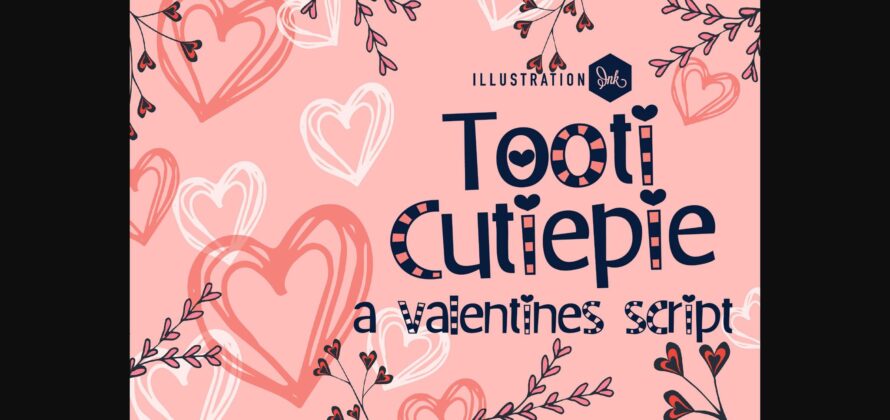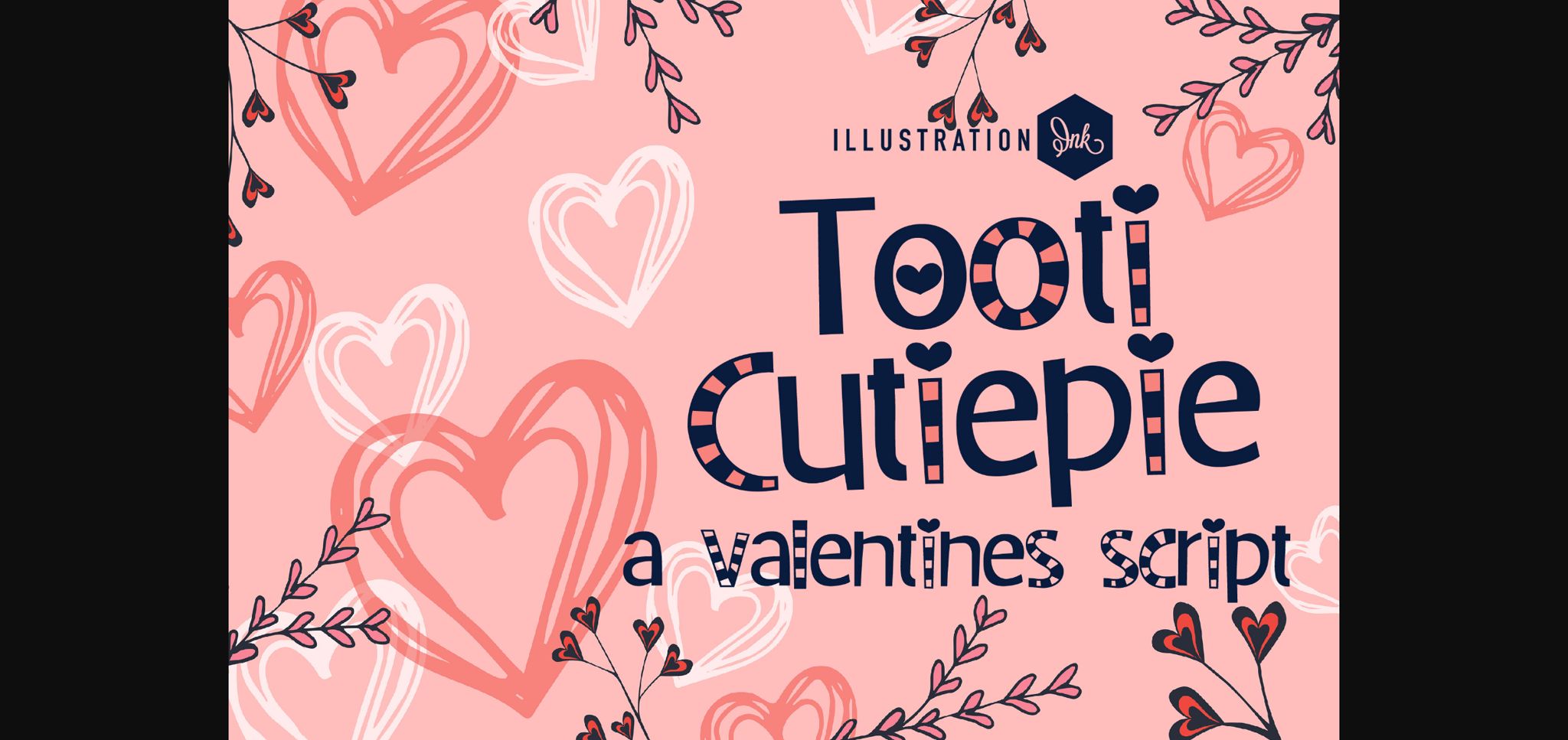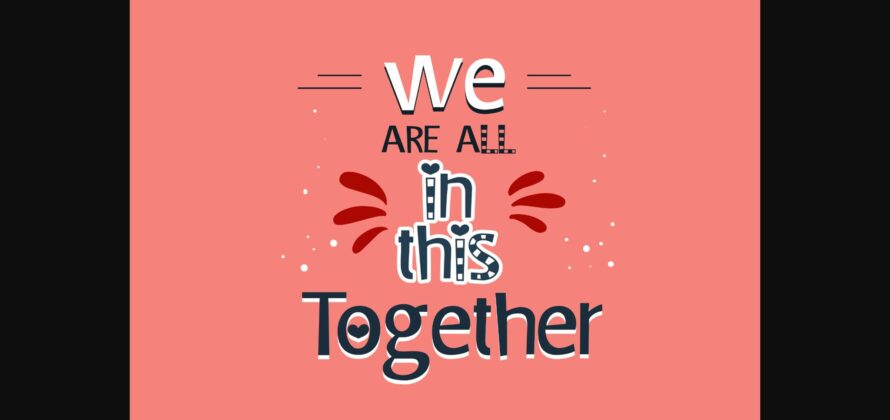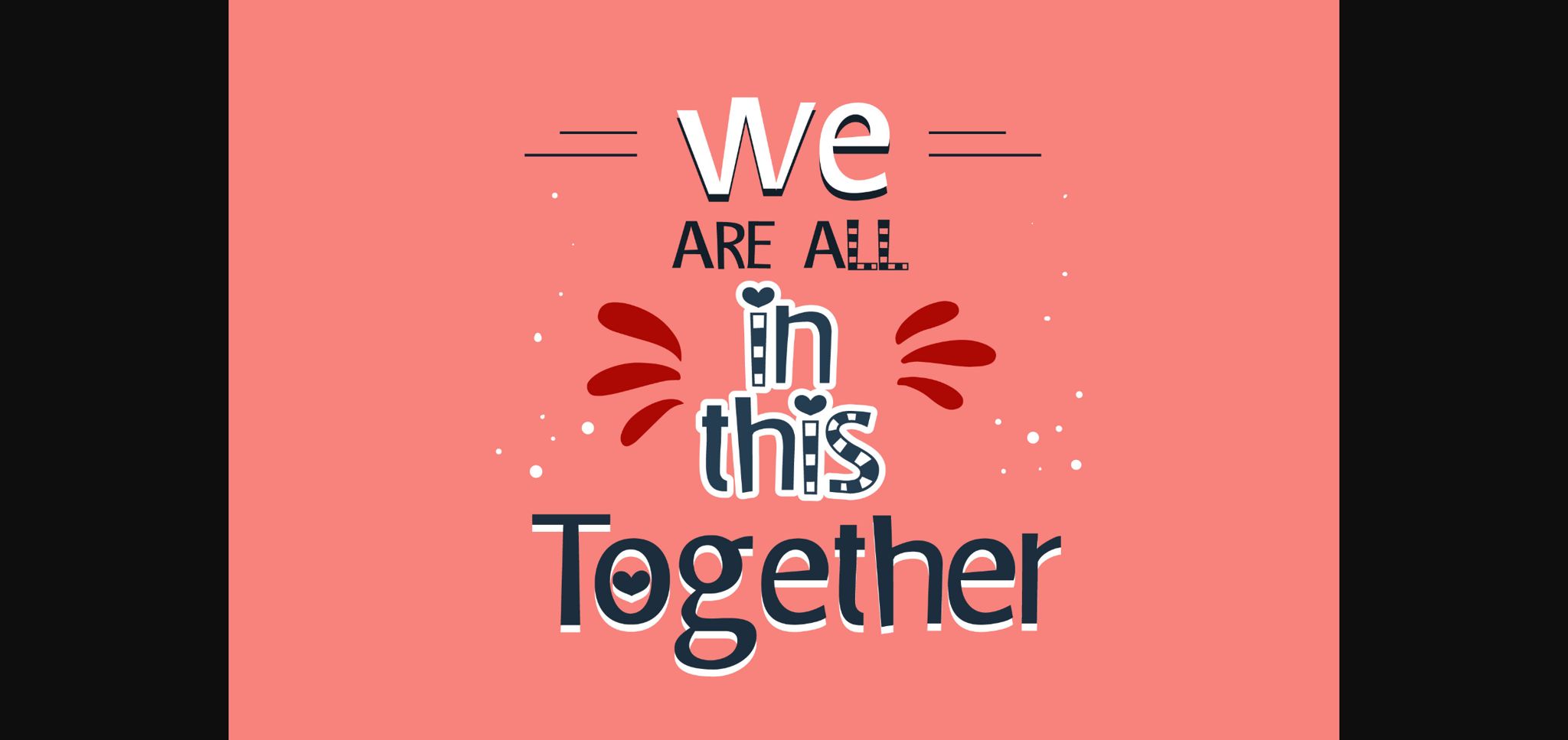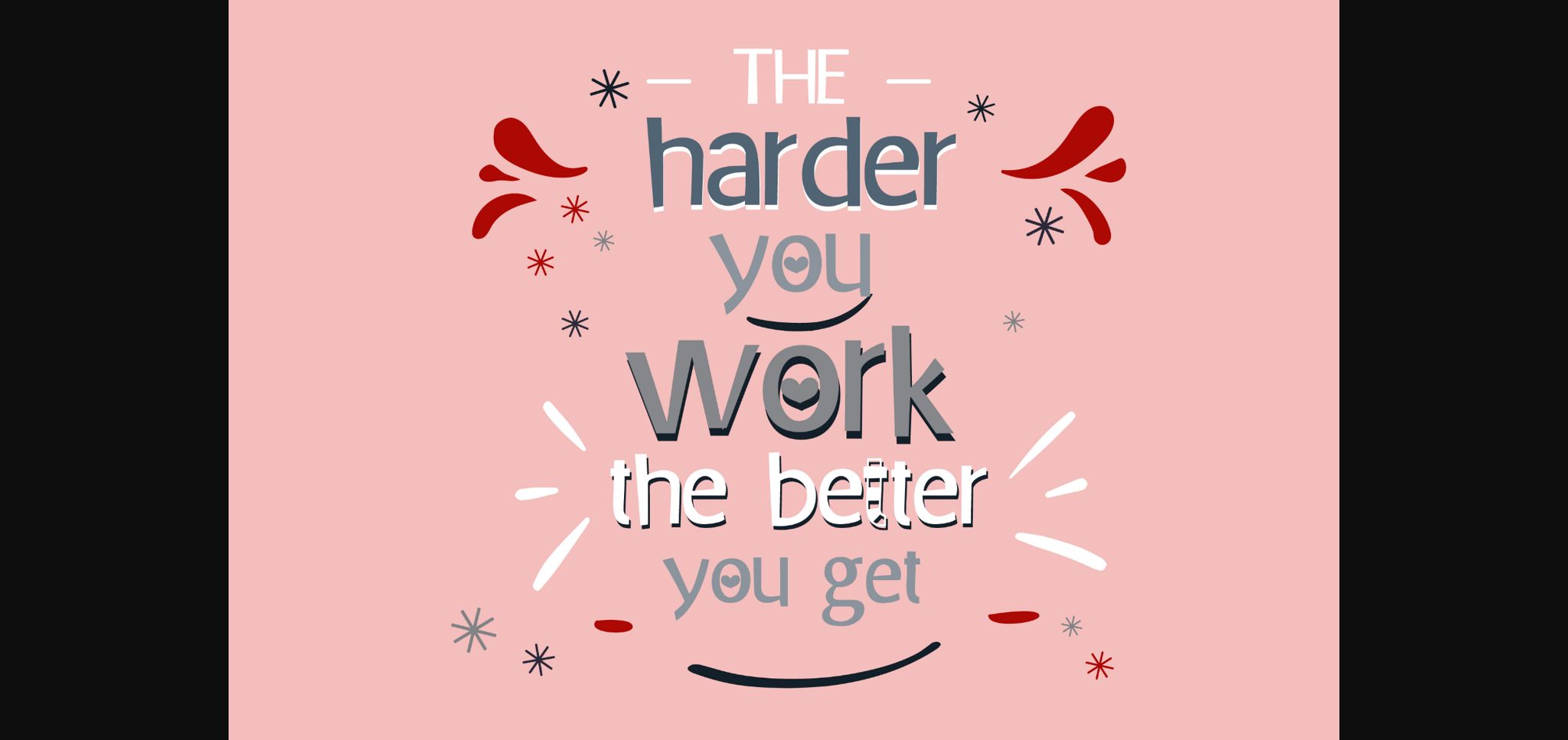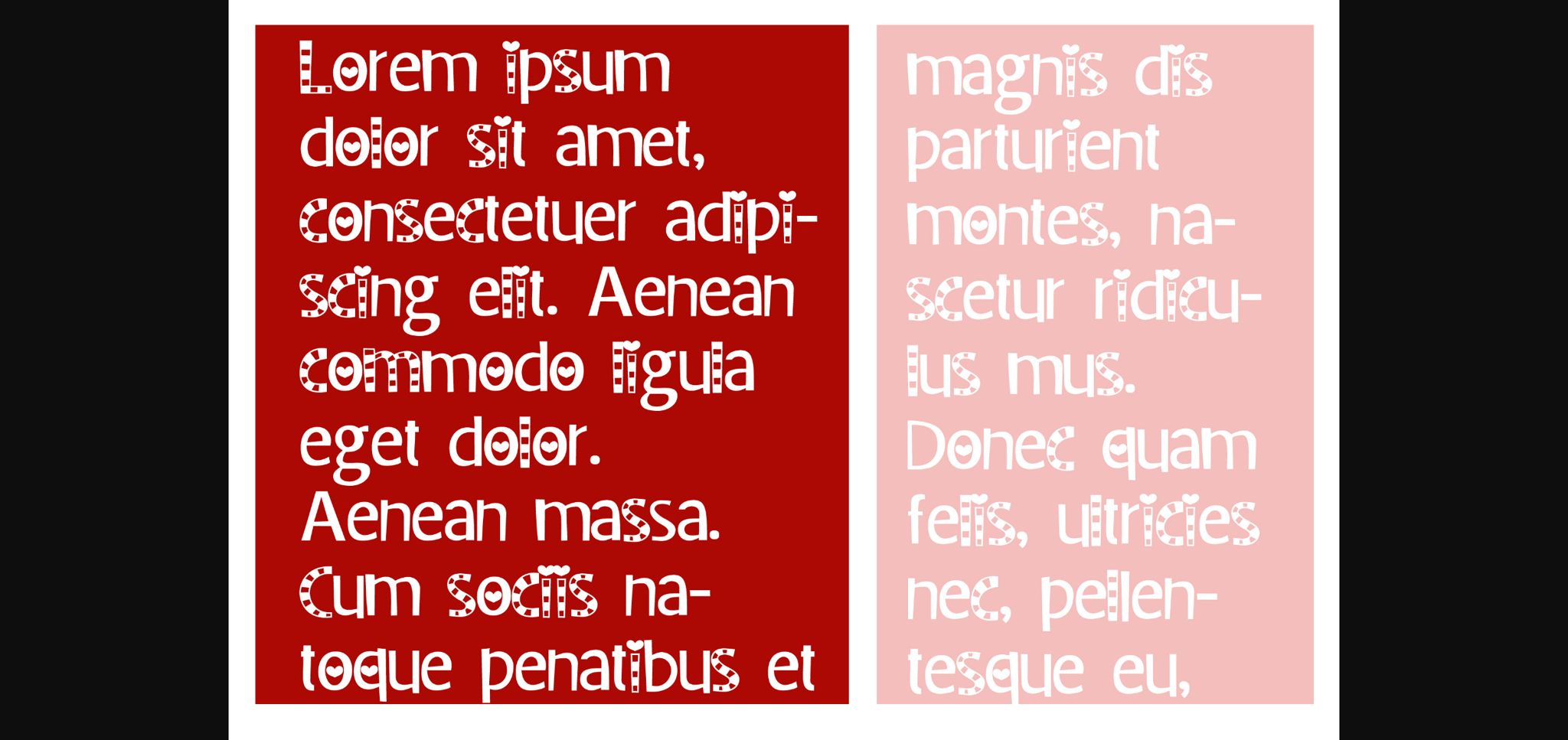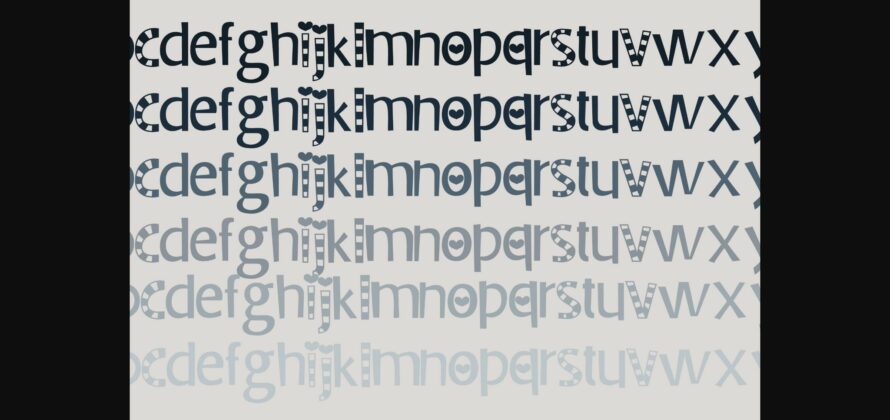
Tooti Cutiepie Font
About Tooti Cutiepie Font
This hand-crafted sans is a whimsical print with hearts throughout. No matter the topic, this font will be an incredible asset to your fonts’ library, as it has the potential to elevate any creation.